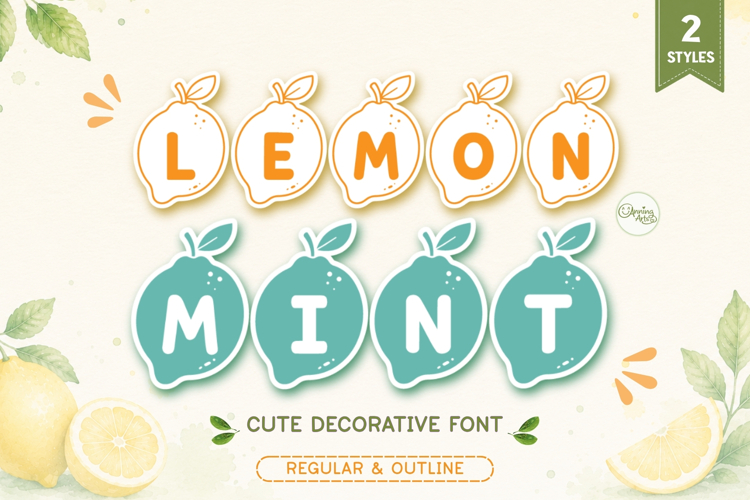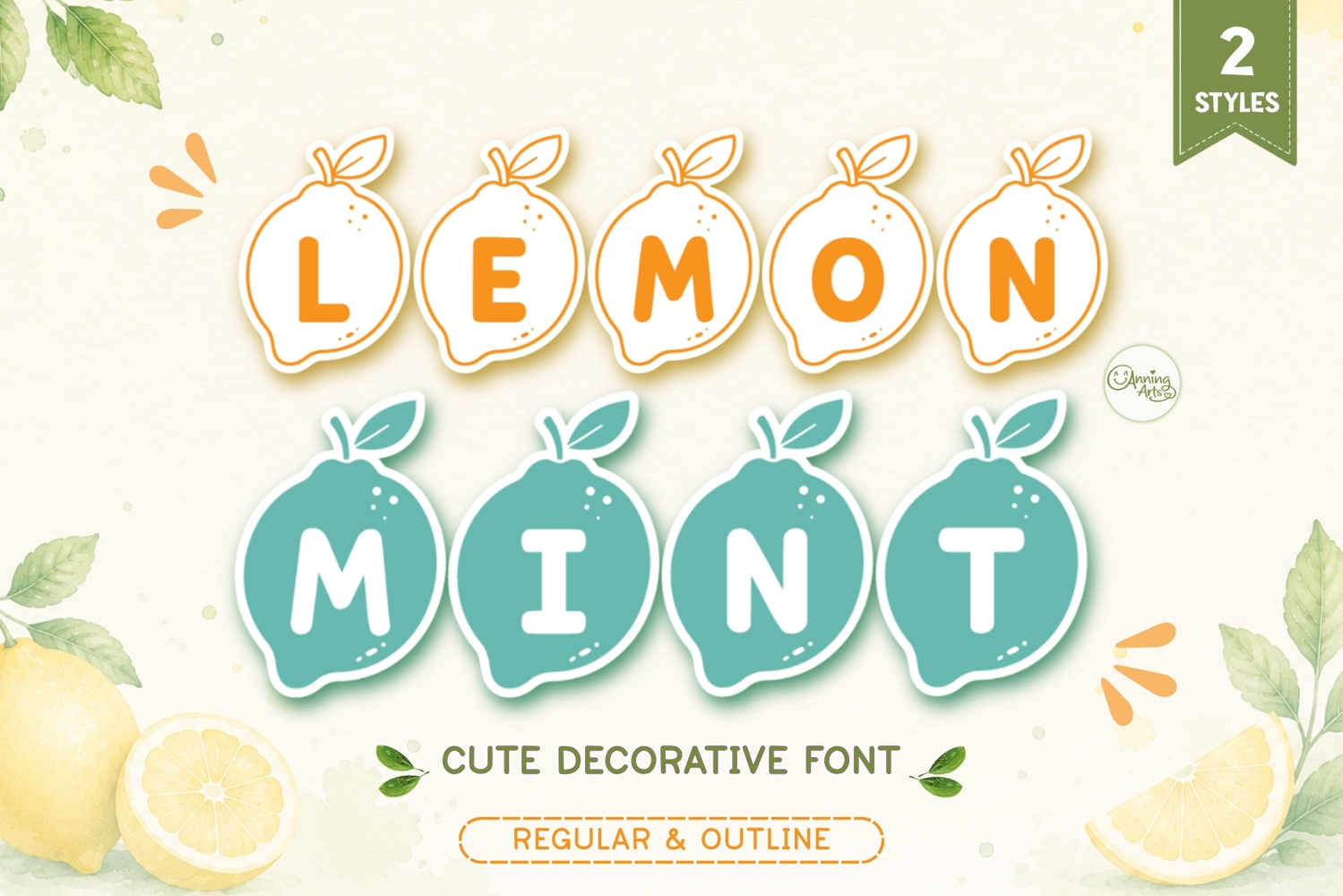
Bring a fresh and cheerful touch to your creative projects with Lemon Mint Font!
This cute decorative font features playful lemon-shaped letters inspired by fresh citrus and mint leaves. Perfect for summer designs, handmade crafts, stickers, apparel, packaging, gift tags, invitations, café branding, and Cricut projects.
Lemon Mint includes 2 styles:
• Regular
• Outline
This font is ideal for creating: